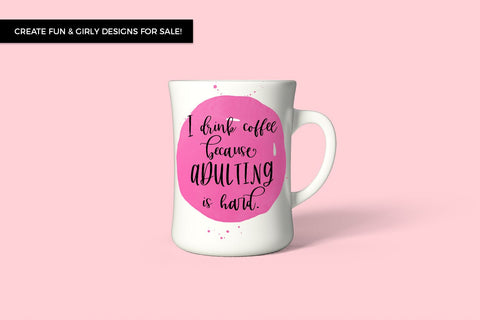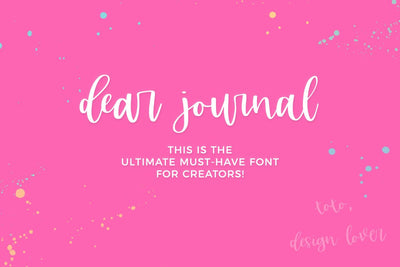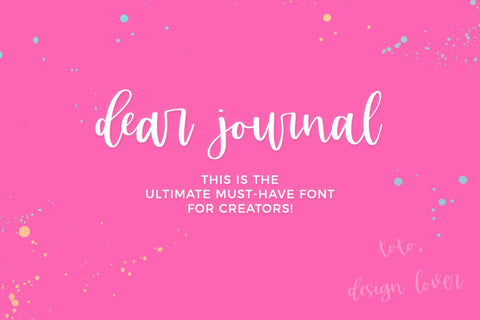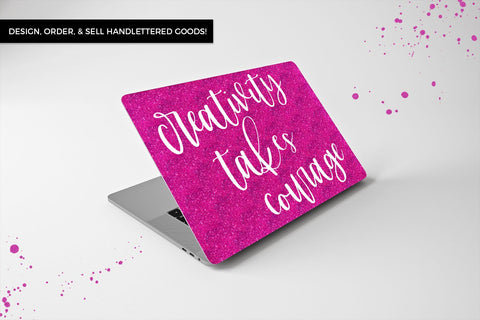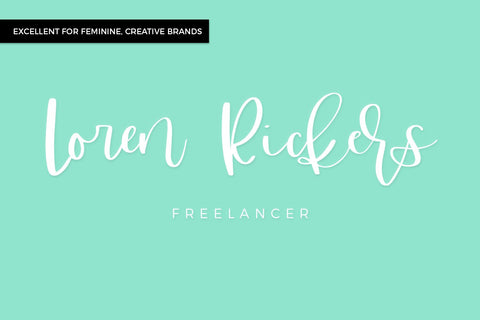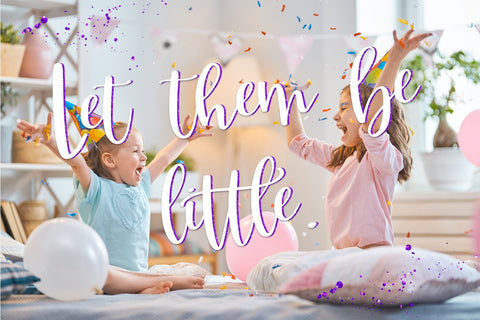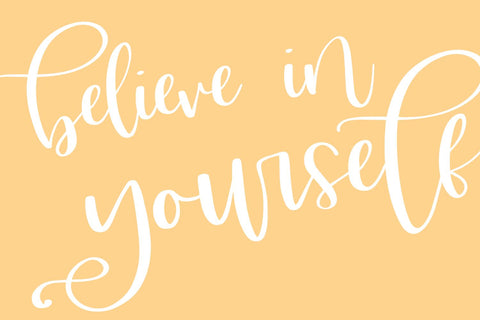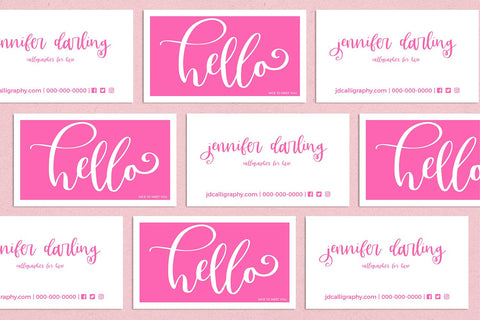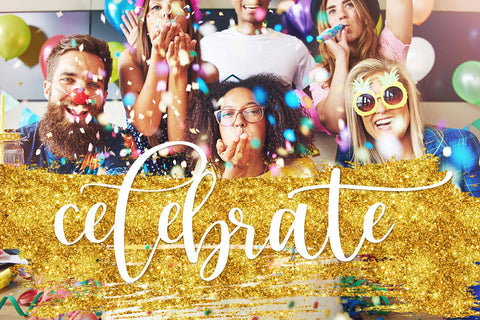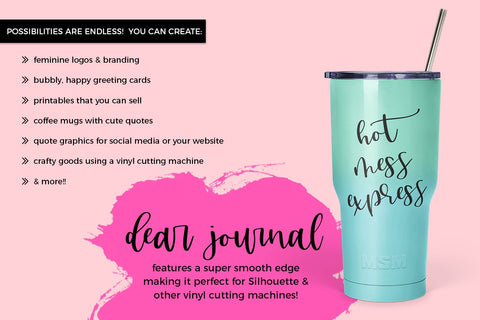
Dear Journal Calligraphy Font
Dear Journal,
Everyone kept asking me what font would work as the best match for my hand-lettered files, so I made one. It’s awesome - a font that is a total must-have for creators. This font has so many extras that it’s insane! Anyone who wants to create something that looks handlettered & handmade can do so effortlessly, and the combinations possible are endless.
Dear Journal has so many possibilities. If you’re a maker & creator that sells goods, this font will be perfect for:
- crafting - this font has a super smooth edge, making it an excellent fit for vinyl cutting machines like Silhouette or Cricut
- names or quotes on tumblers & mugs
- printable quotes
- shirts
You can also use Dear Journal for:
- clean print design, like magazines + flyers
- header elements that need a feminine touch
- logos + branding
- quote graphics for social media
Dear Journal includes:
- full upper + lowercase characters
- numbers + punctuation
- 123 lowercase alternate characters
- one set of super bouncy lowercase characters
- one set of steady, more mild-mannered lowercase characters
- and a plethora of flourished, loopy characters and common ligatures